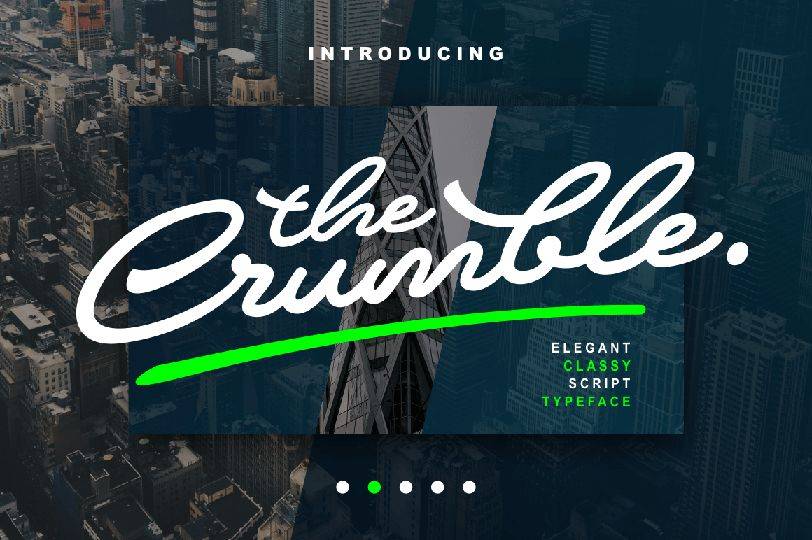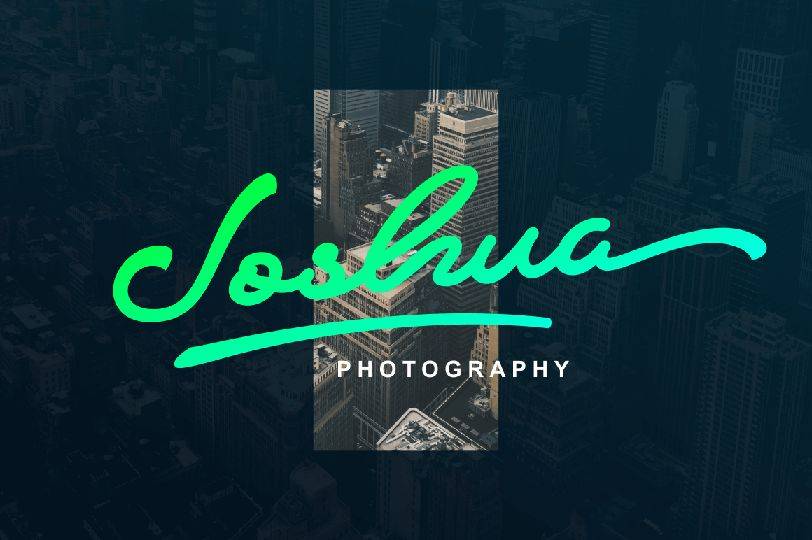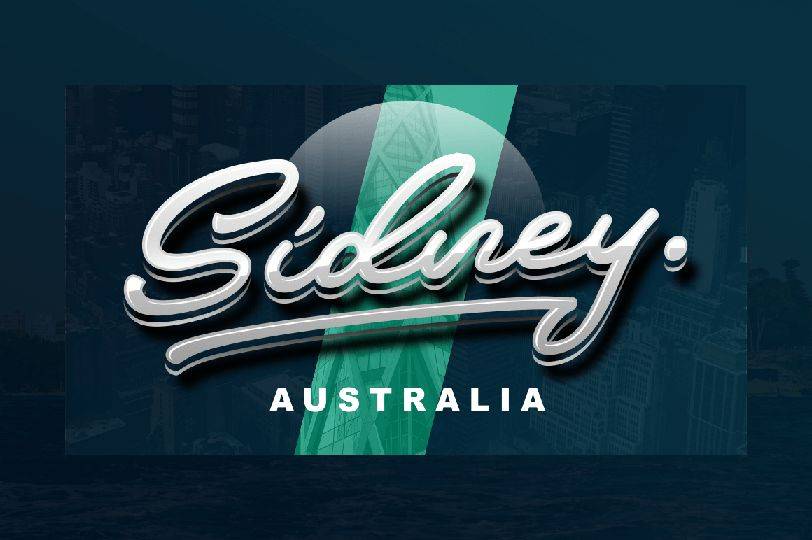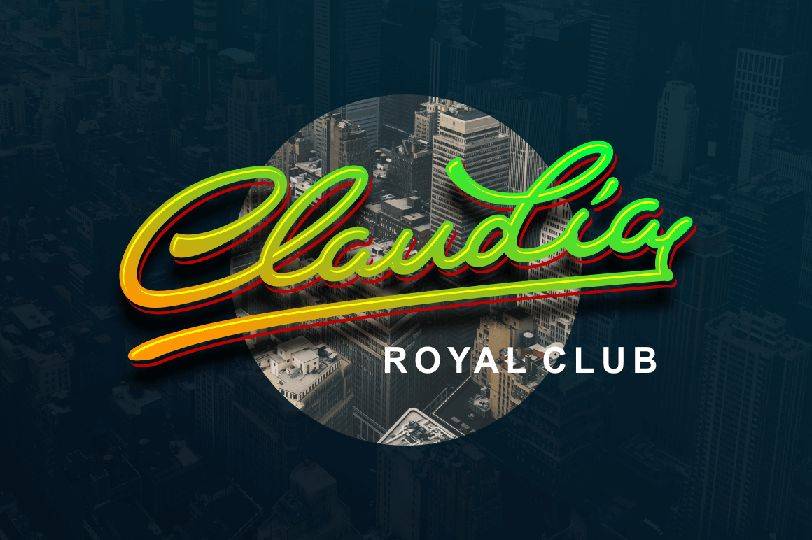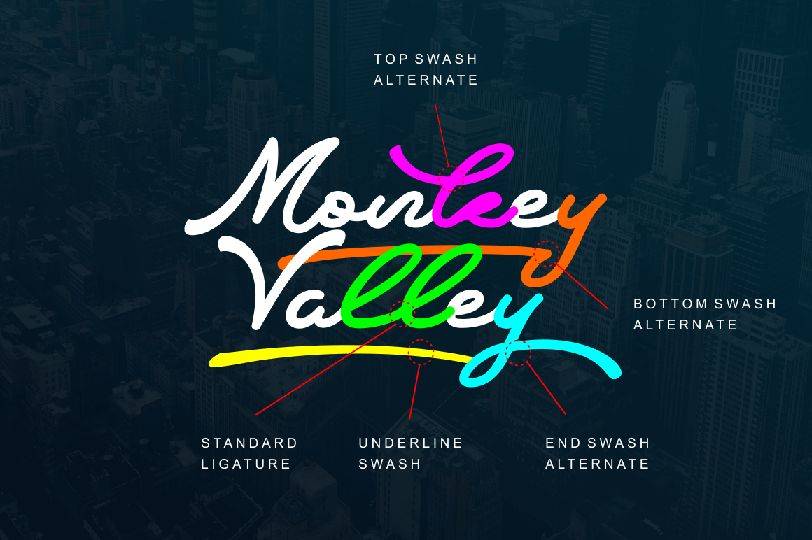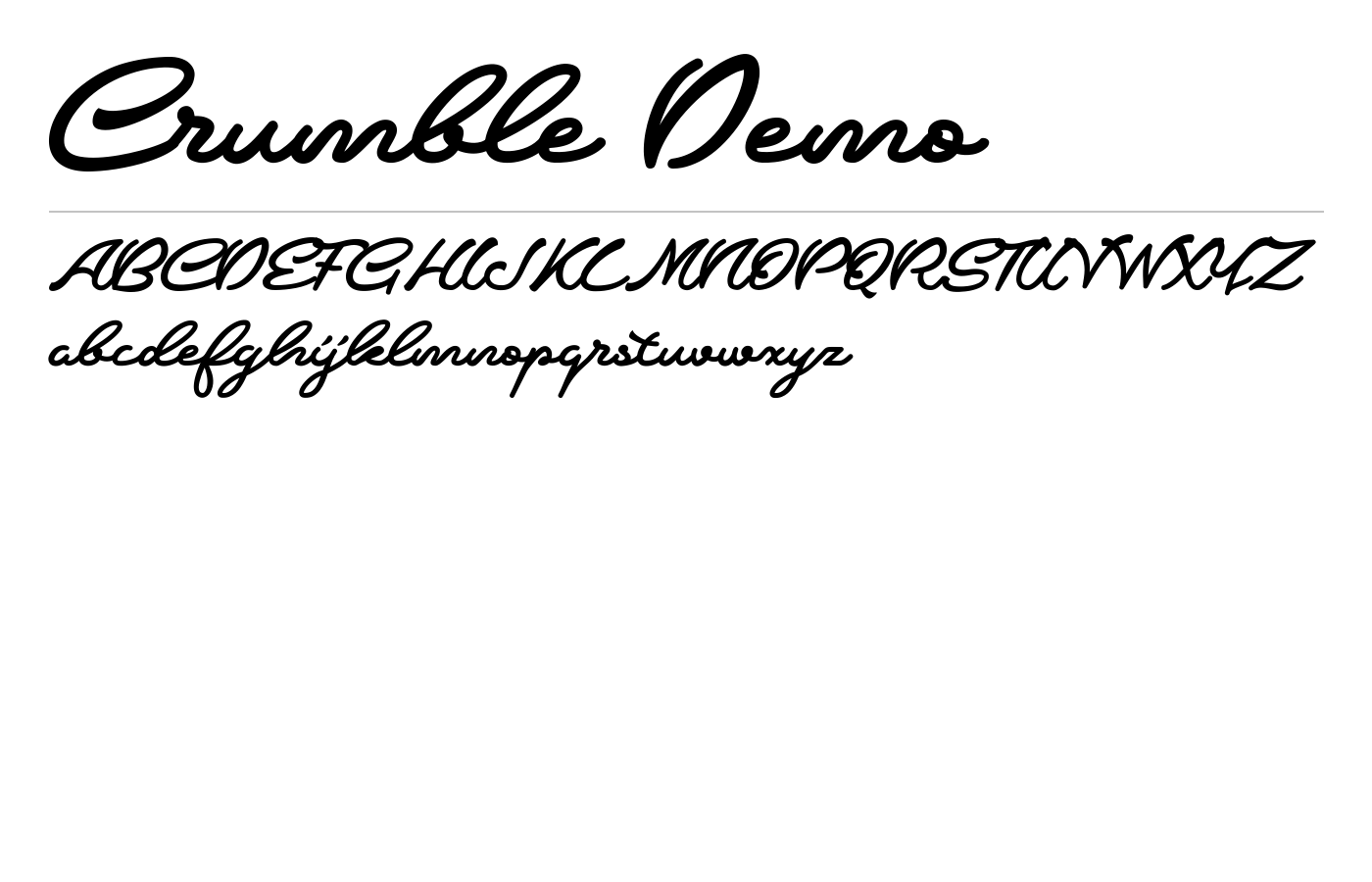
Crumble Font is a stylish script typeface that features elegant, flowing letterforms with a smooth, consistent stroke weight and moderate x-height, giving it a refined yet approachable feel. Its connected cursive letters and gentle curves make it perfect for branding, invitations, and creative projects that seek a personal, handwritten touch with a classic and sophisticated vibe. This font works well in logos and headlines where a warm, inviting personality is desired.
Crumble Font
About Crumble Font
| Font family | Crumble Font |